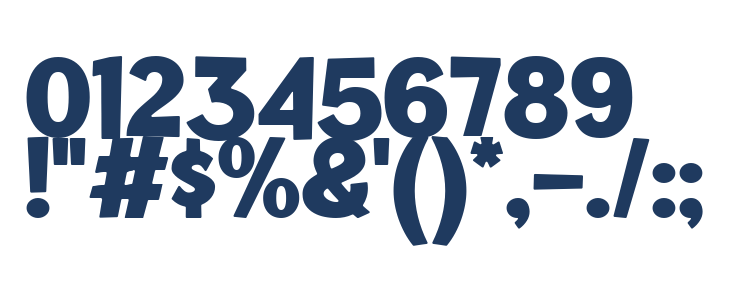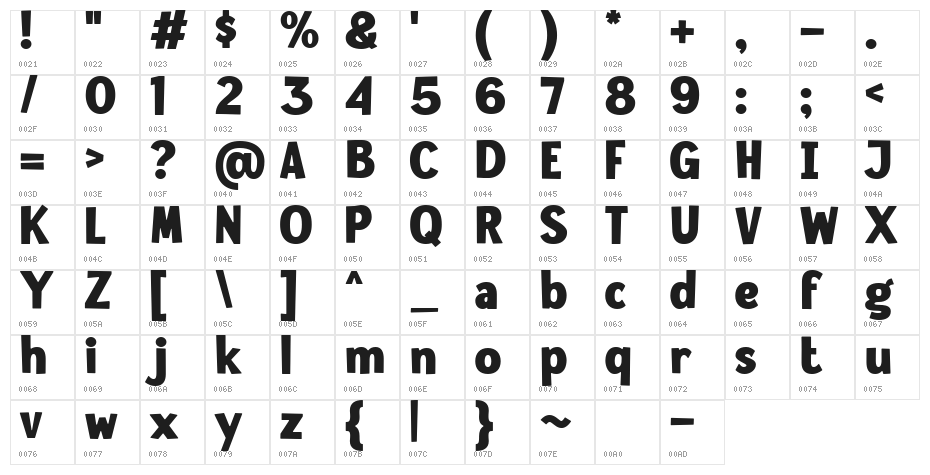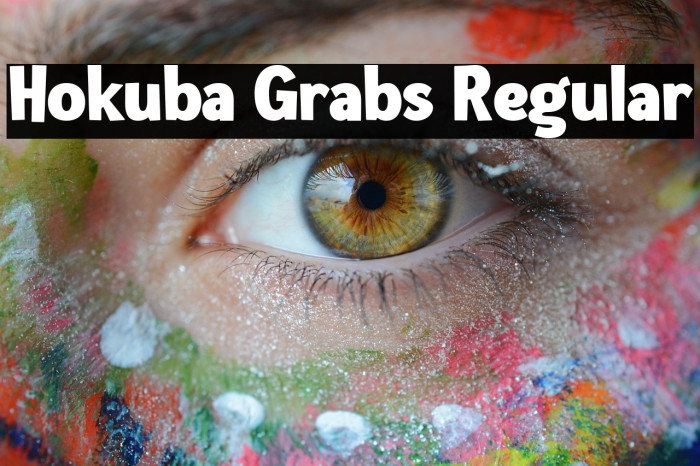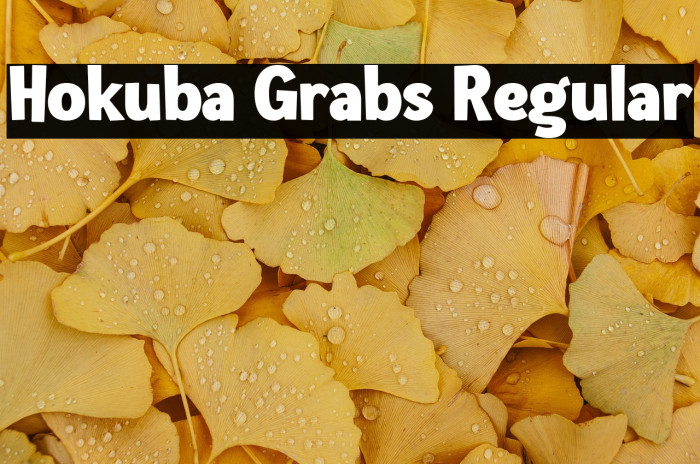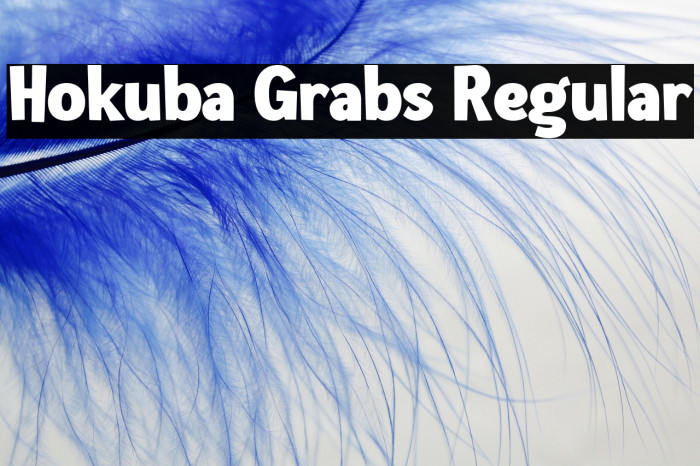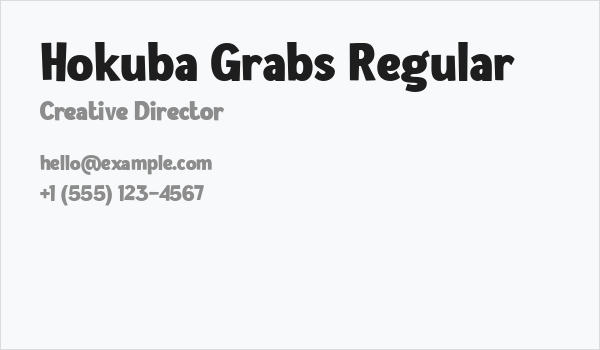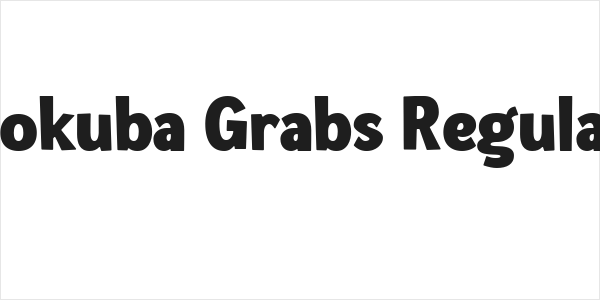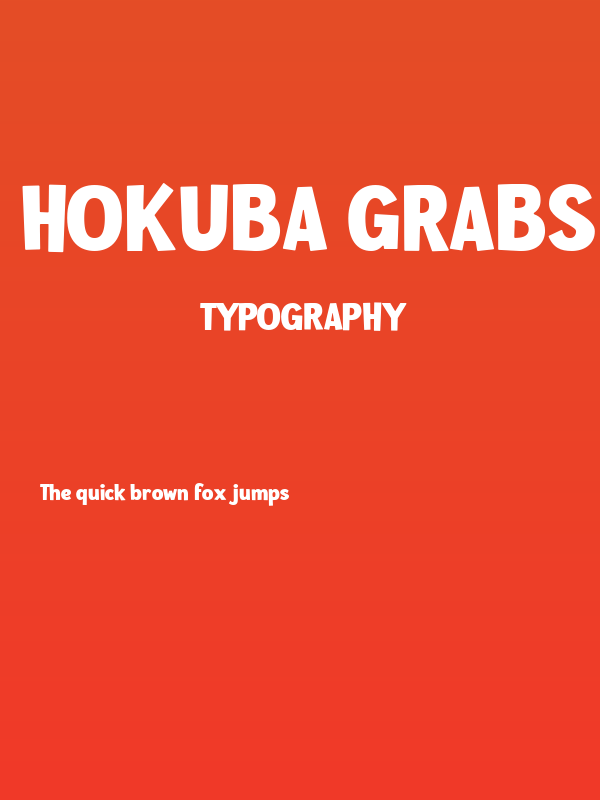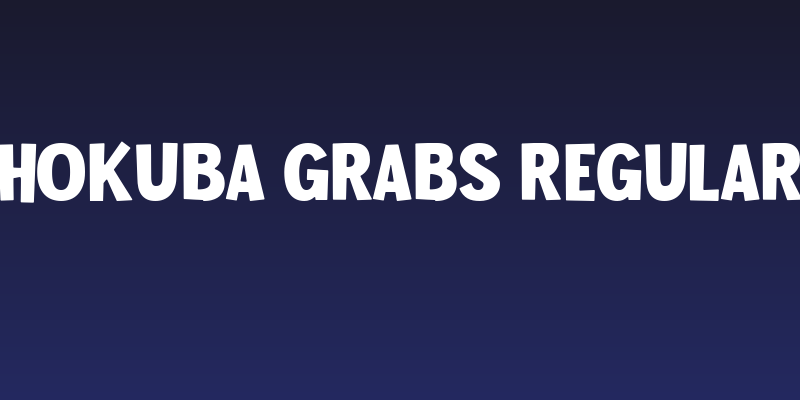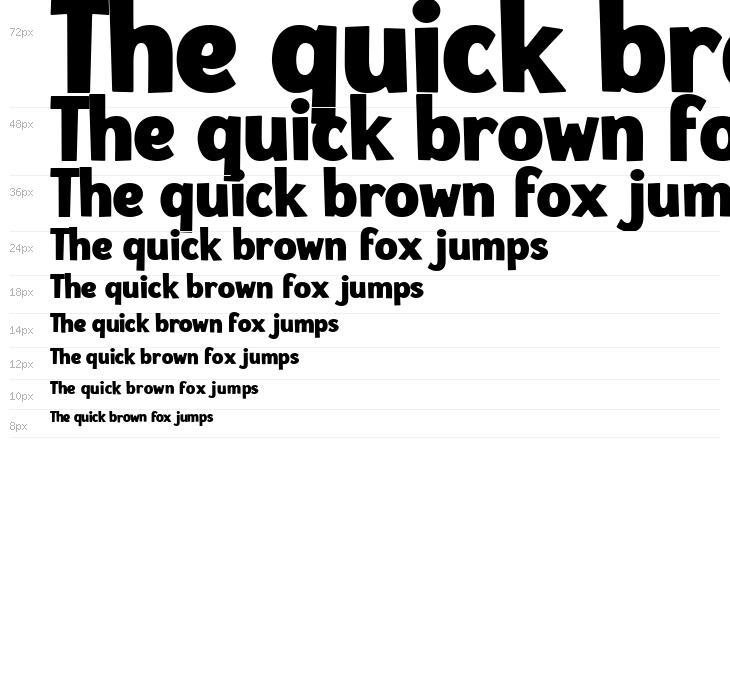
Hokuba Grabs Regular Font
Hokuba Grabs Regular Description
This font features bold, rounded characters with a playful and friendly appearance. The letters are thick and have a slightly uneven baseline, giving them a hand-drawn feel. The uppercase and lowercase letters maintain a consistent style, with the uppercase being more prominent and the lowercase offering a softer touch. The numbers are equally bold and rounded, matching the overall aesthetic. Special characters are clearly defined and maintain the same playful style. The font's design is approachable and versatile, suitable for a variety of creative projects.
| Overall Style | Playful, Friendly |
| Proposed Projects | Ideal for children's books, playful branding, posters, and informal invitations. |